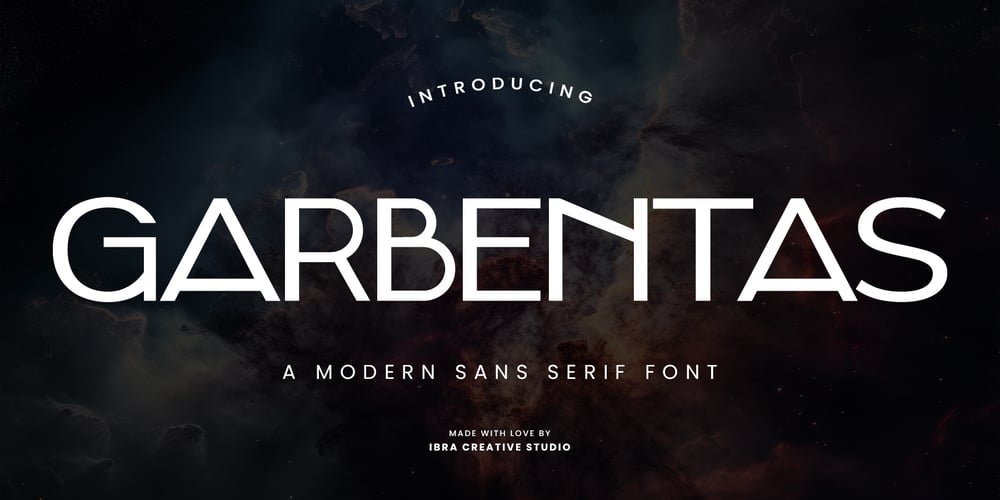
Garbentas
Garbentas font
Garbentas Font Family was designed by Roisatul Azizah and published by IbraCreative. Garbentas contains 1 styles and family package options. Garbentas is a contemporary sans-serif typeface that seamlessly blends modern aesthetics with timeless simplicity. Its clean lines and balanced proportions exude a sense of sophistication, making it an ideal choice for a wide range of design applications. The typeface embodies a harmonious combination of elegance and readability, with each character meticulously crafted to achieve optimal legibility across various platforms. Garbentas’ versatility shines through in both digital and print media, offering a sleek and polished look that caters to the demands of today’s design landscape. With a distinct and refined personality, Garbentas elevates visual communication by providing a fresh, contemporary take on the classic sans-serif genre.